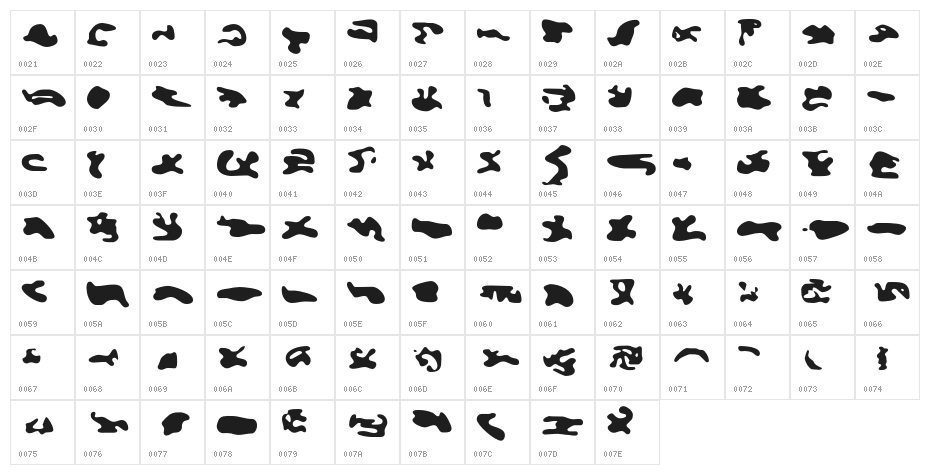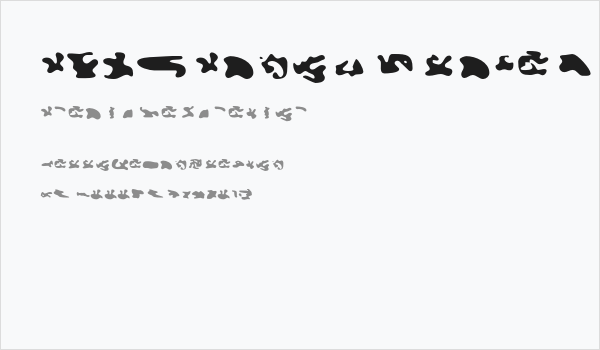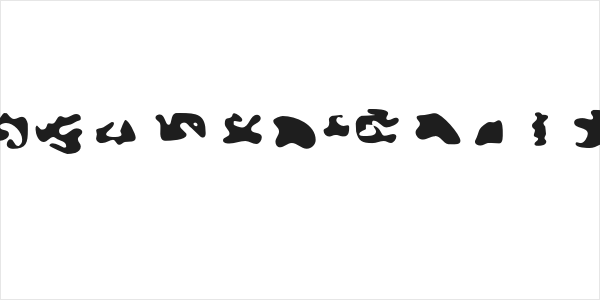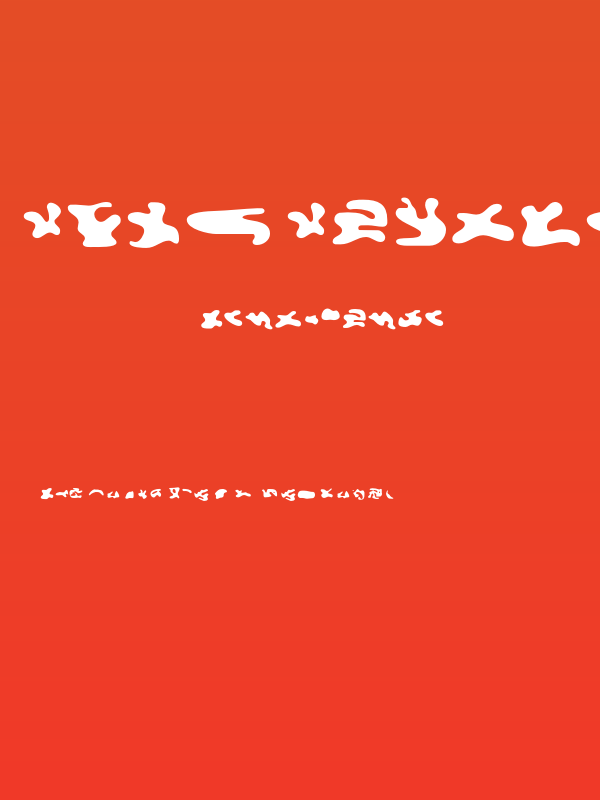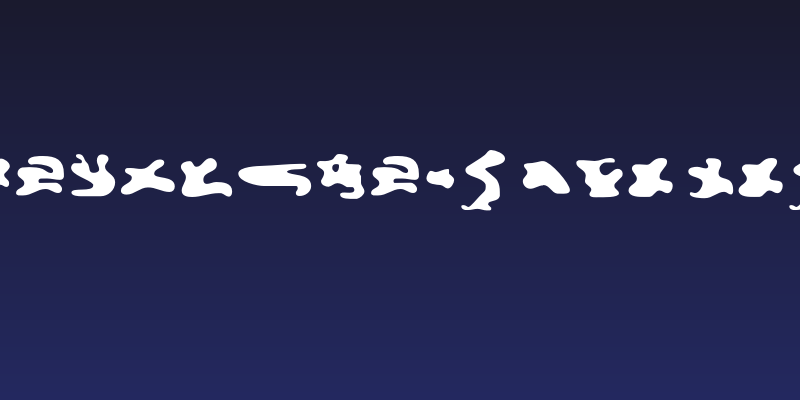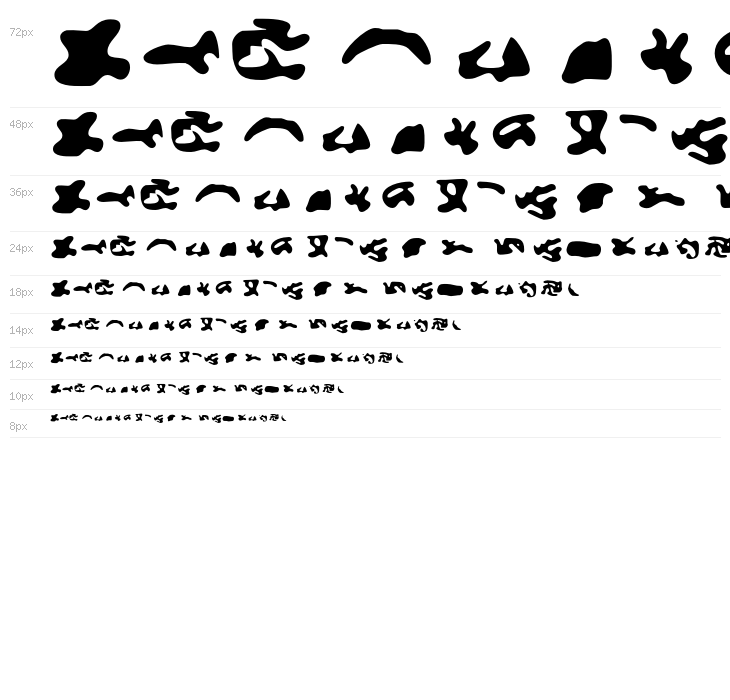
CISF Camouflage Kit Stencil Font
CISF Camouflage Kit Stencil Description
This font features a highly abstract and artistic design, resembling camouflage patterns. The characters are bold and irregular, with each letter and symbol appearing as a unique shape that blends into the next. The style is reminiscent of stencil art, with thick strokes and a playful, organic flow. The font lacks uniformity, giving it a dynamic and unpredictable appearance. It's perfect for projects that require a creative and unconventional look, offering a sense of mystery and intrigue.
| Use Case | Logos, Posters, Artistic Designs |
| Proposed Projects | Ideal for artistic projects, military-themed designs, creative posters, and unique branding materials. |